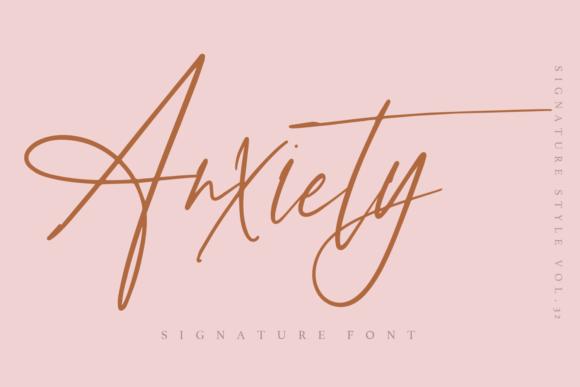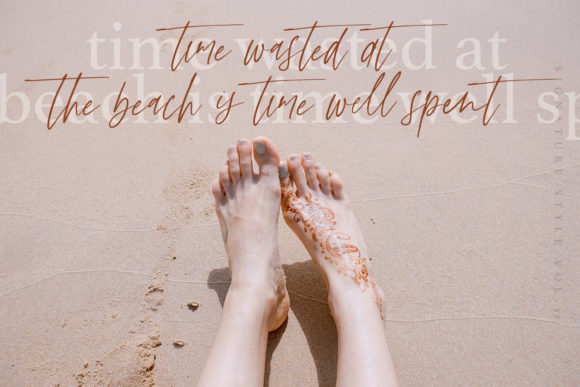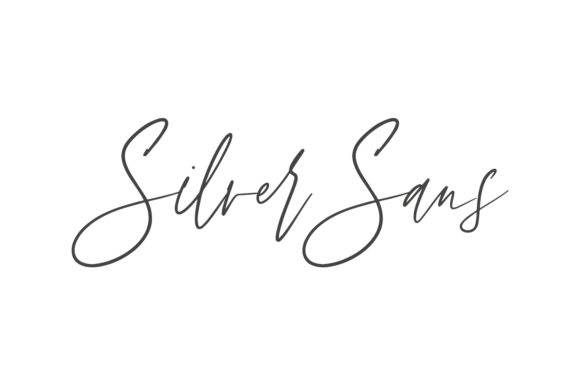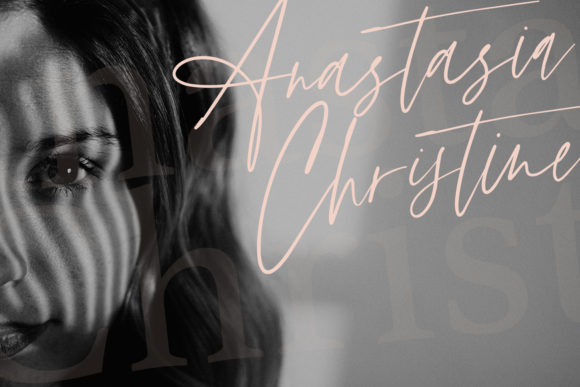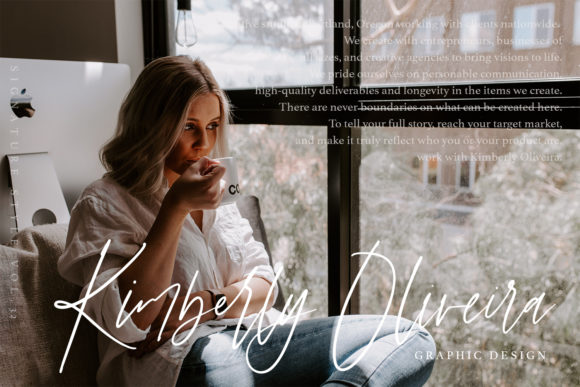
About Anxiety Font
Anxiety is a lovely and timeless handwritten font. It is the best choice for creating eye catching logos, branding and quotes. Every letter has a unique and beautiful touch, which will make your design come alive!